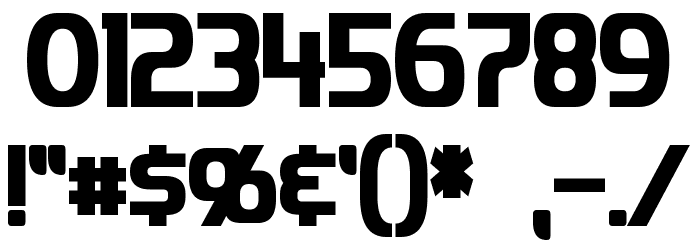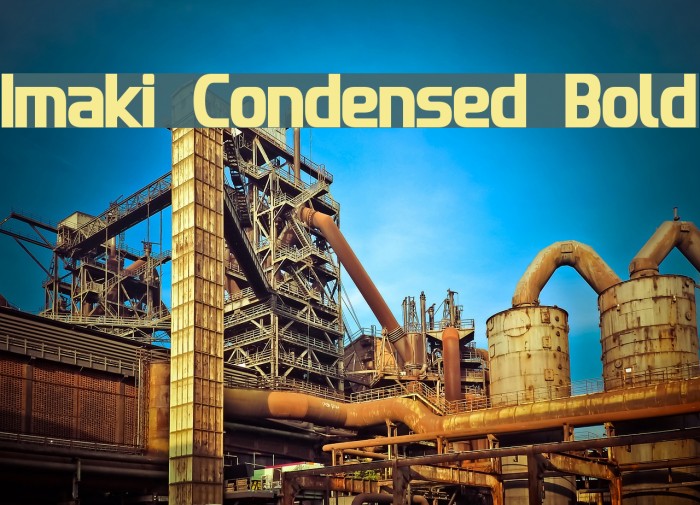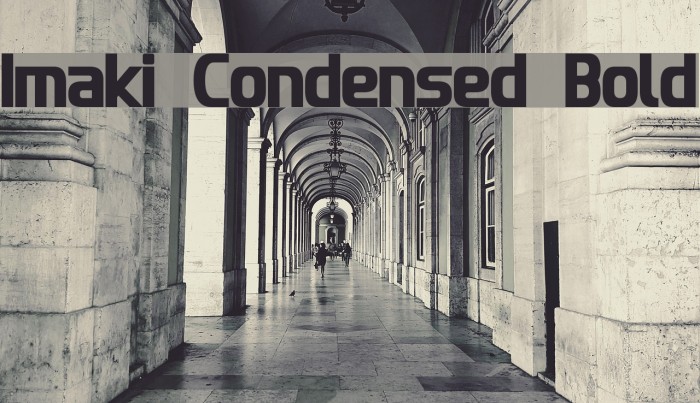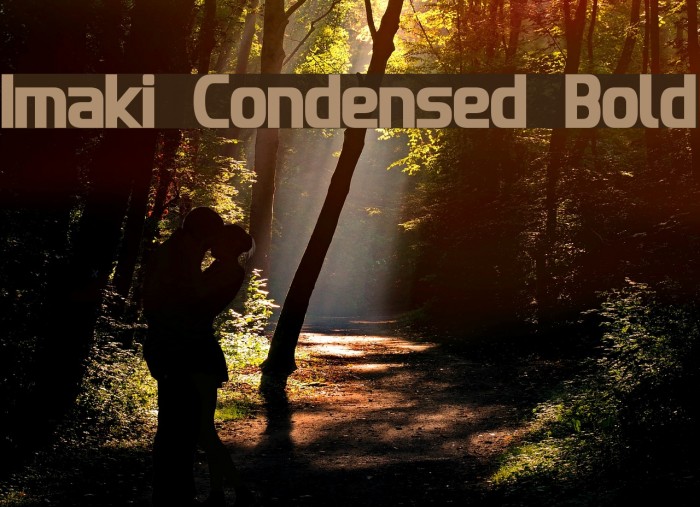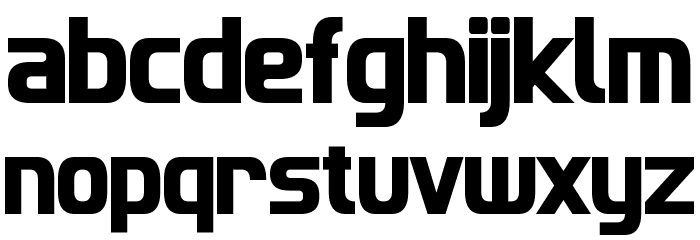
Imaki Condensed Bold Font
Imaki Condensed Bold Description
This typeface features a bold and condensed style, characterized by its thick strokes and minimal spacing between characters. The uppercase letters are uniform in height, with a modern geometric influence that gives them a sleek appearance. The lowercase letters maintain a consistent style, with rounded edges that soften the overall look. The numerals are bold and clear, ensuring readability. Special characters are distinct and maintain the same boldness, making them suitable for various design needs. This font's condensed nature allows for efficient use of space while maintaining legibility.
| Proposed Projects | Ideal for headlines, posters, and branding materials where space is limited but impact is needed. |